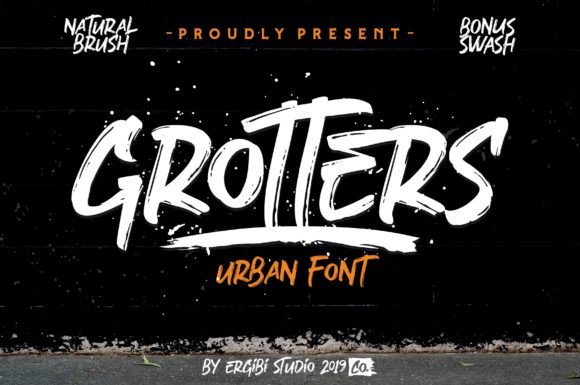
Grotters Brush Font
A hand brush font. This is a simple and very casual font, free spirited brush font perfect for adding a perfectly imperfect hand lettered touch to your projects. Introducing Grotters Brush Font. Grotters Urban Font is a supercharged, With extra attention to quick strokes and sharp details Grotters is ideal for logos, apparel, T-shirts, hoodies, quotes, product packaging, or anything that needs a typographic turbo-boost. and you’ll get a unique swash to accompany the font